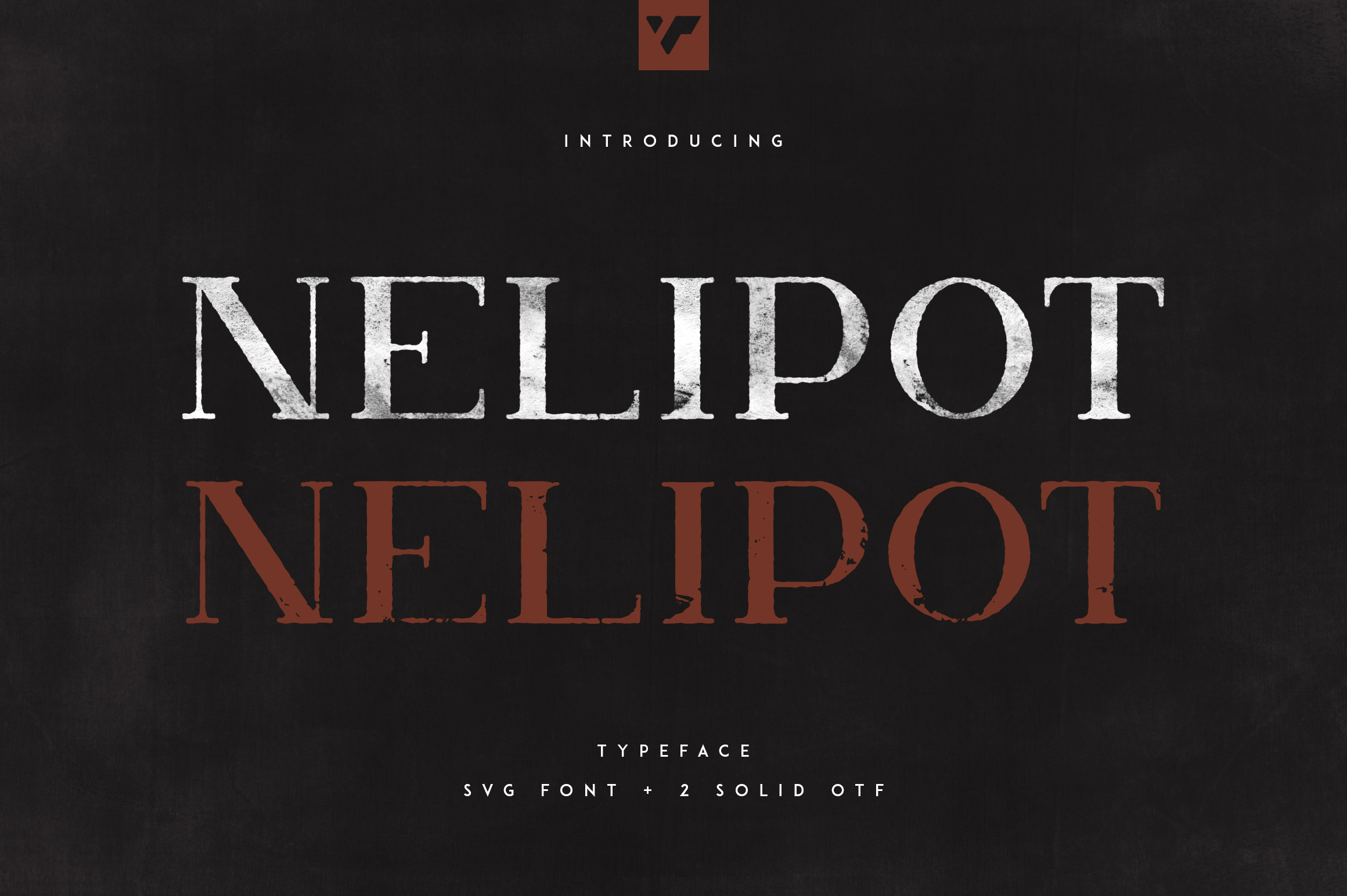
Introducing Nelipot VP Typeface - Bitmap vsg font + 2 solid fonts
Nelipot is perfect for branding projects, home-ware designs, product packaging, magazine headers - or simply as a stylish text overlay to any background image.